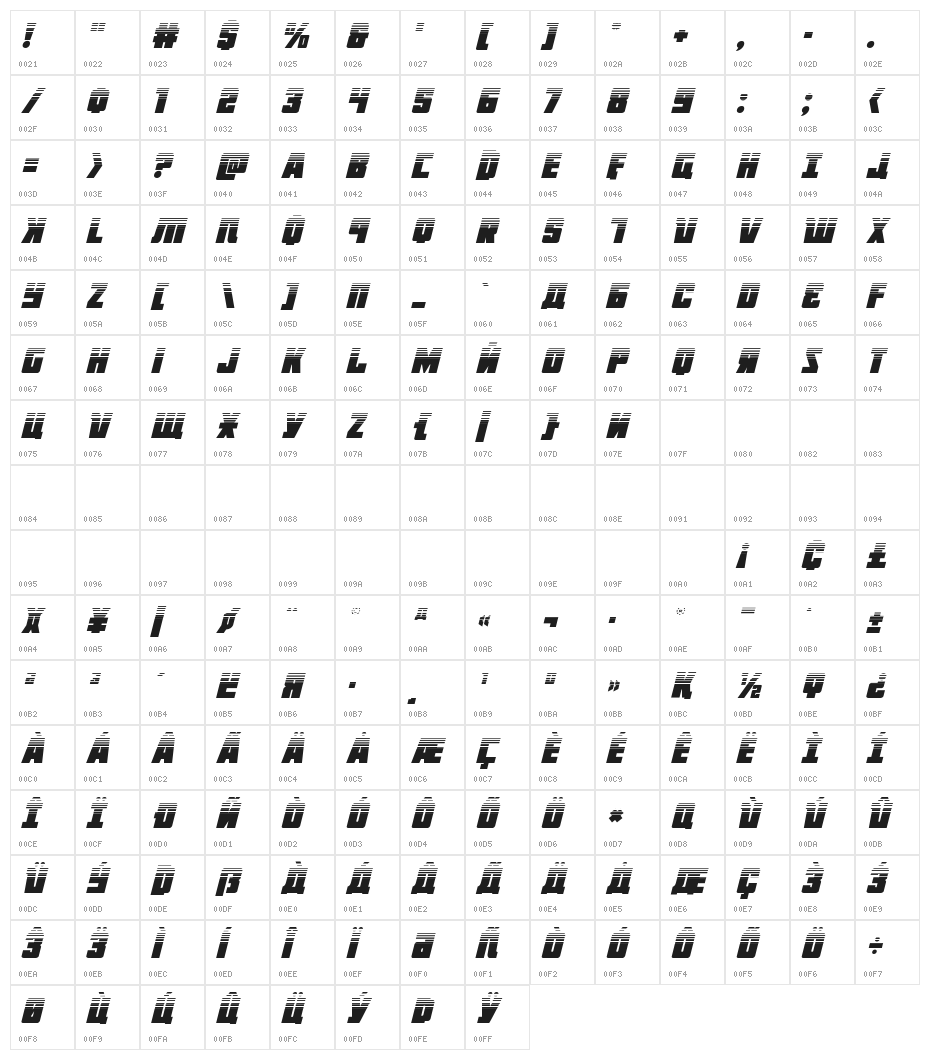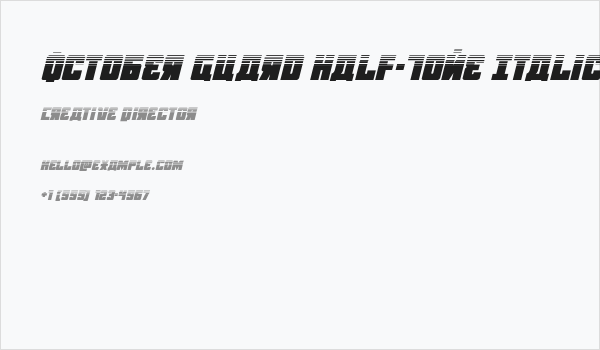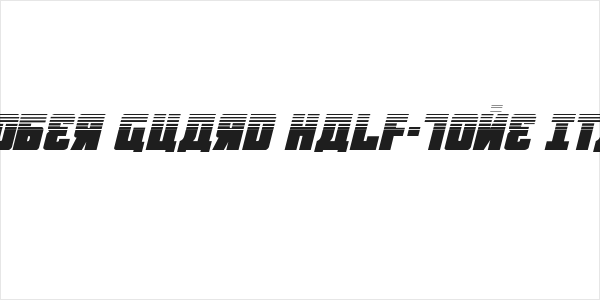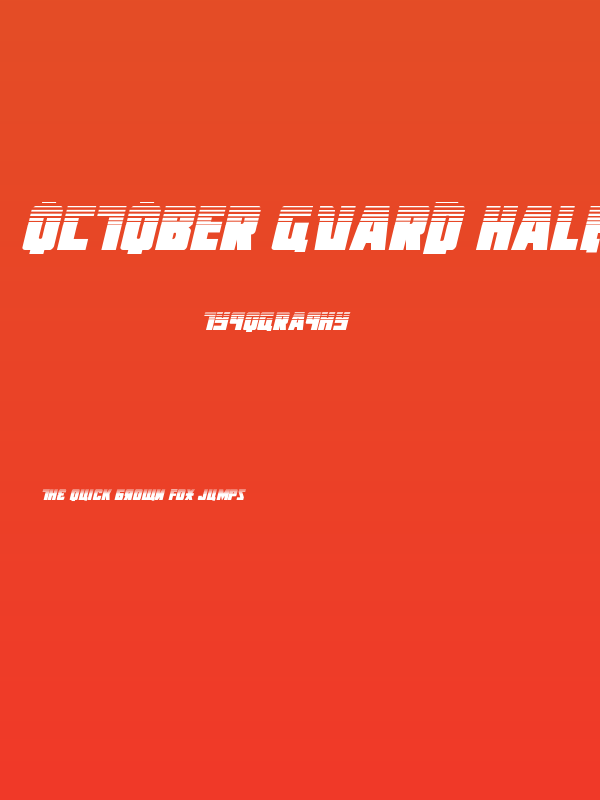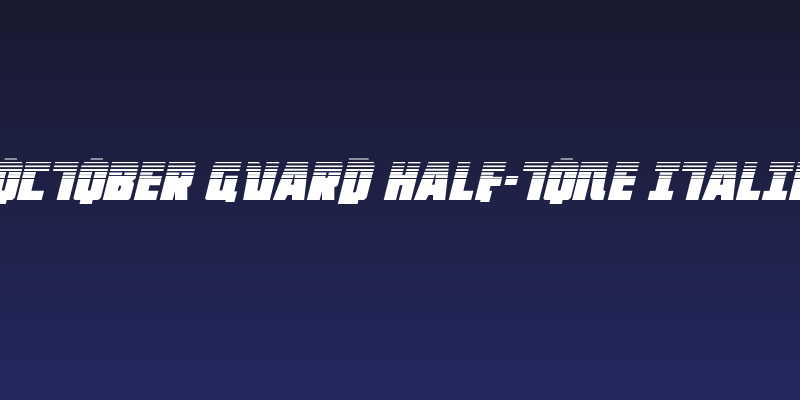
October Guard Half-Tone Italic Font
October Guard Half-Tone Italic Description
This font features a bold, dynamic style with a distinct slanted, italicized form. The characters are designed with a unique half-tone effect, incorporating horizontal lines that create a sense of movement and energy. The uppercase and lowercase letters maintain a consistent width, contributing to a uniform appearance. The numerals and special characters are crafted to match the boldness and style of the alphabet, ensuring cohesion across all text elements. The design is modern and eye-catching, making it suitable for projects that require a strong visual impact.
Proposed ProjectsIdeal for posters, headlines, branding, and any design requiring a bold, modern look.